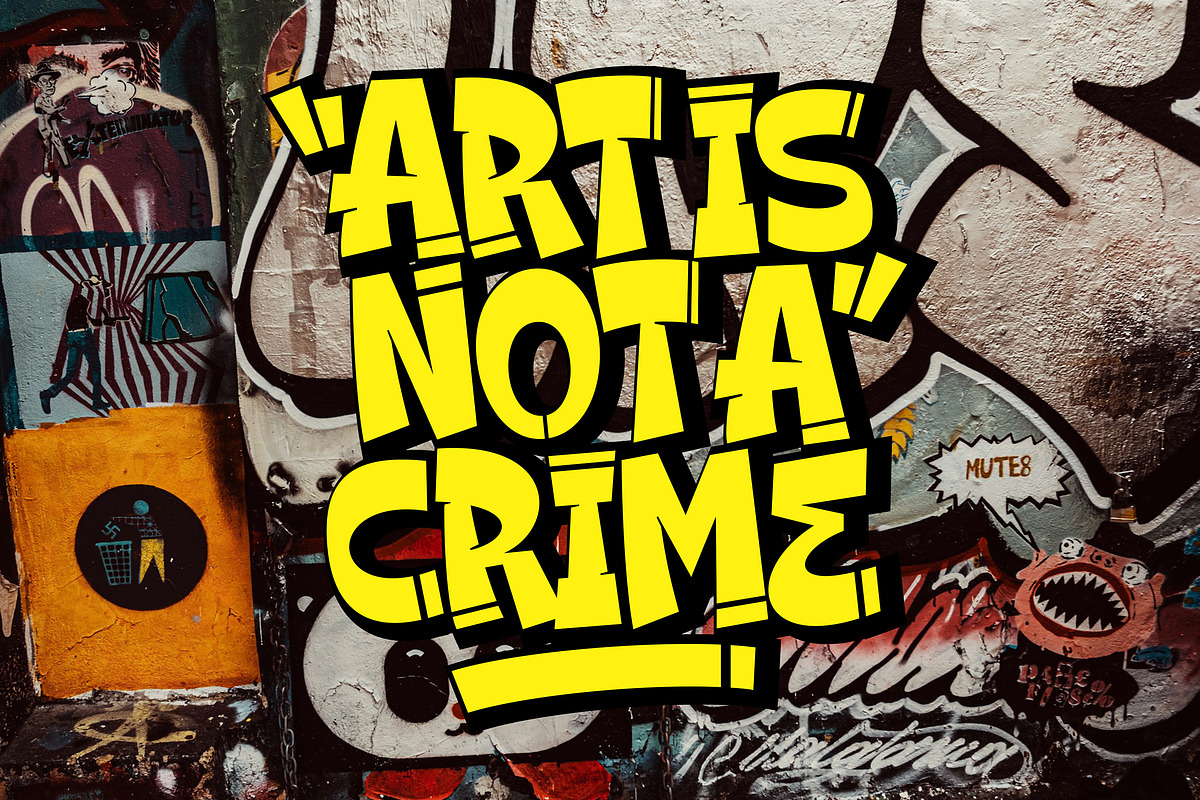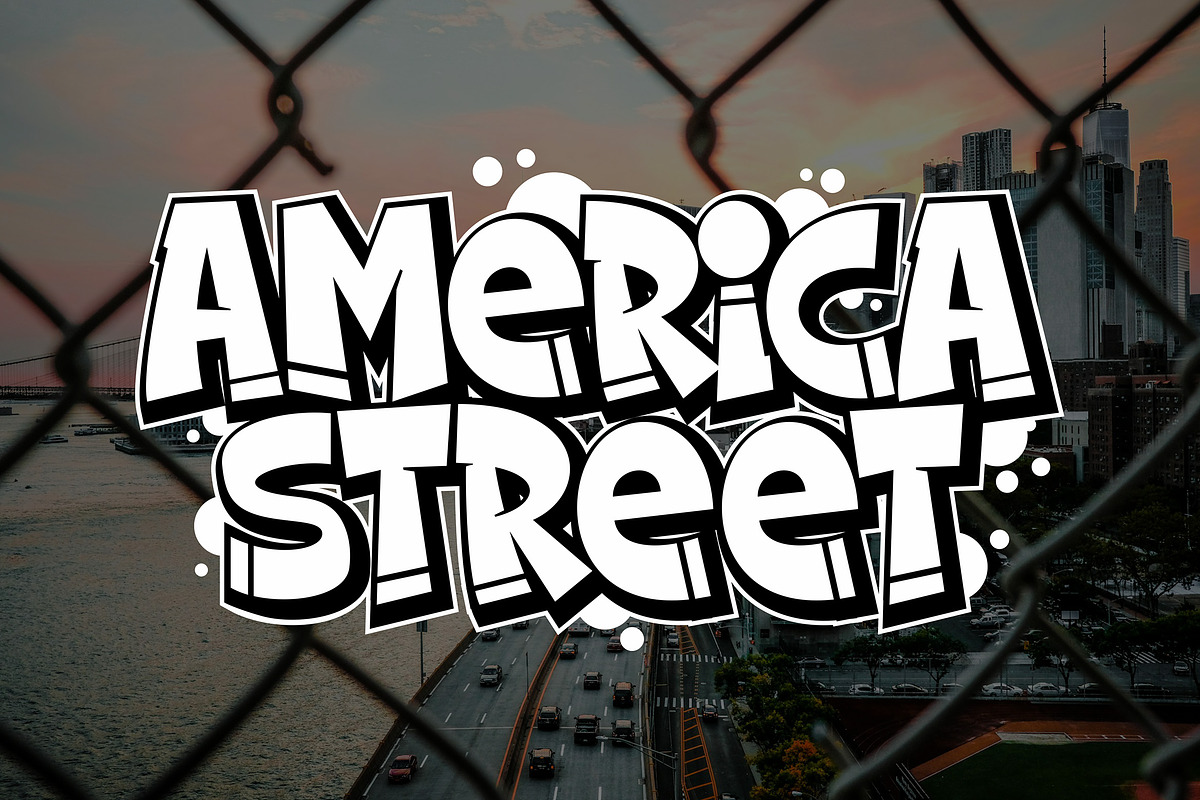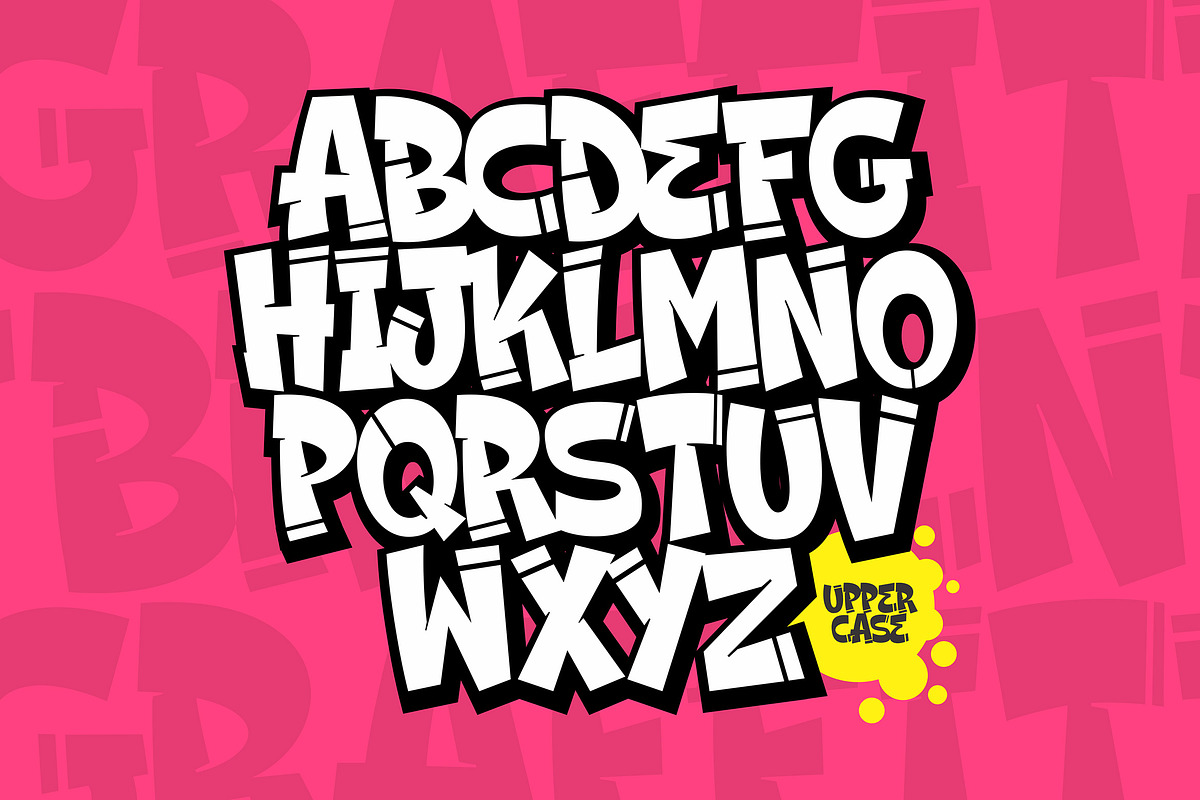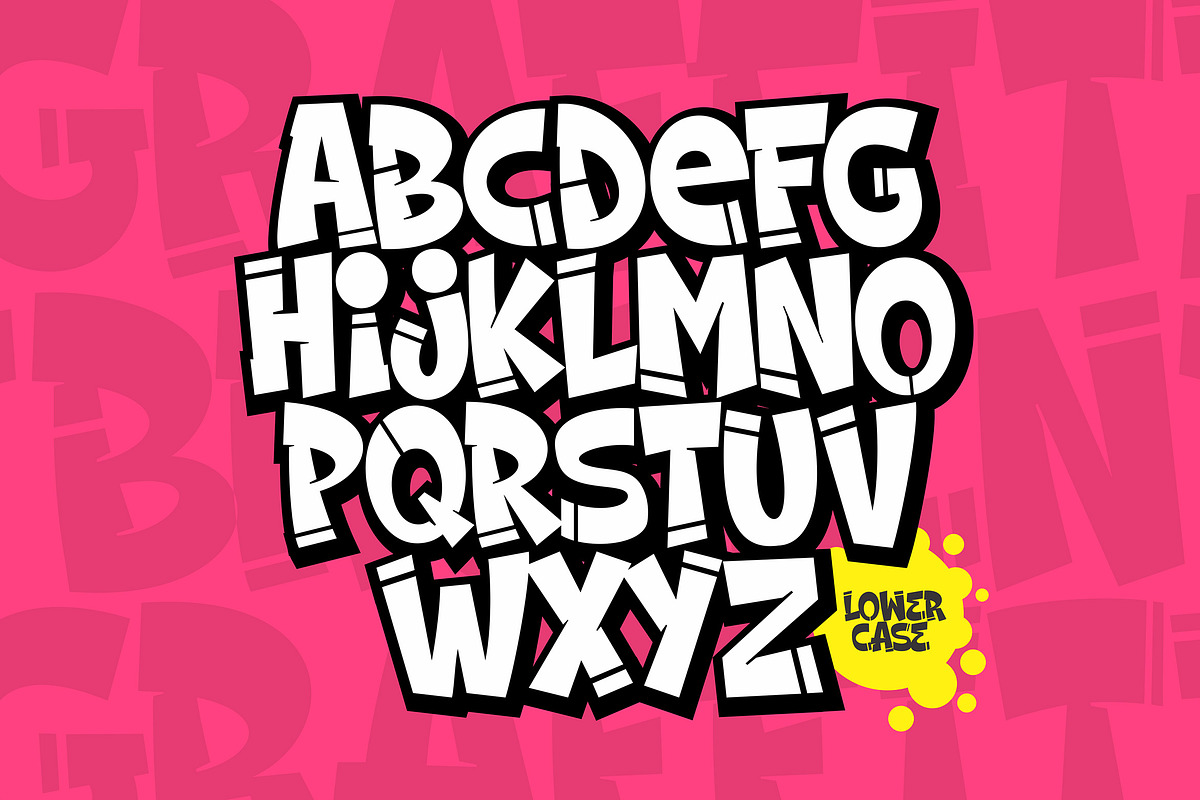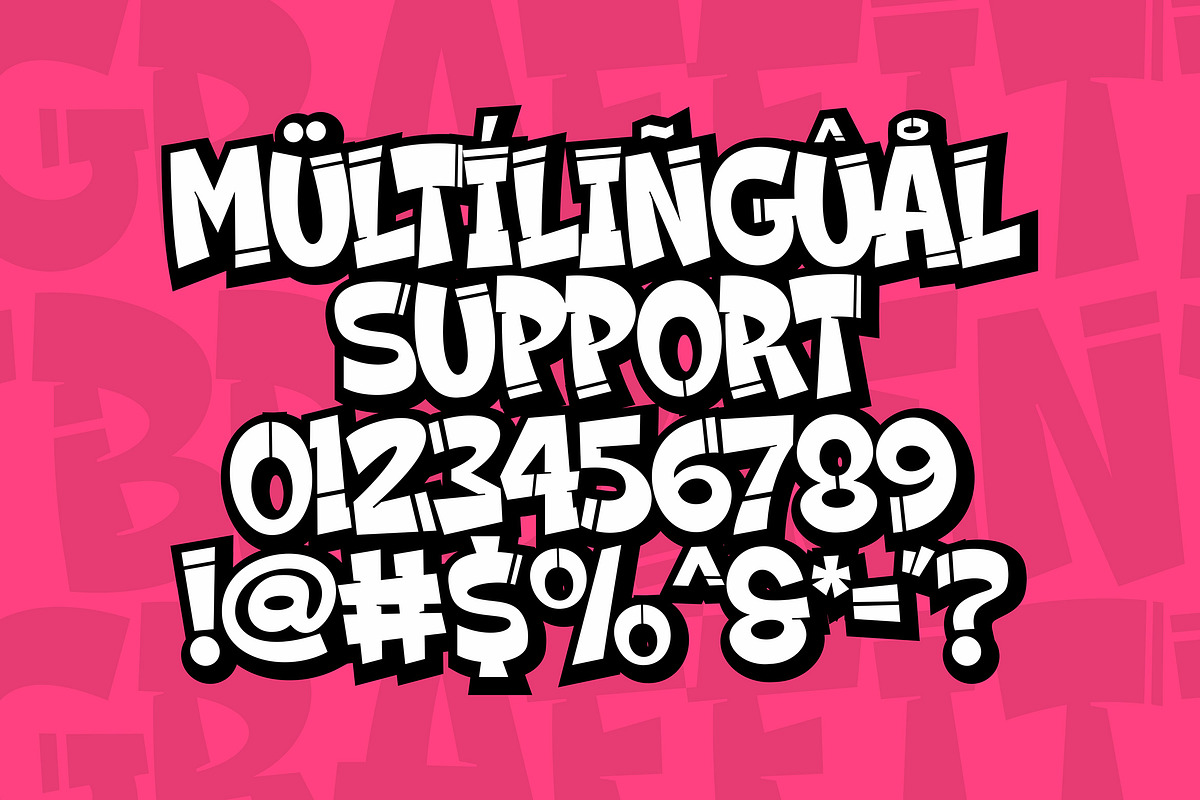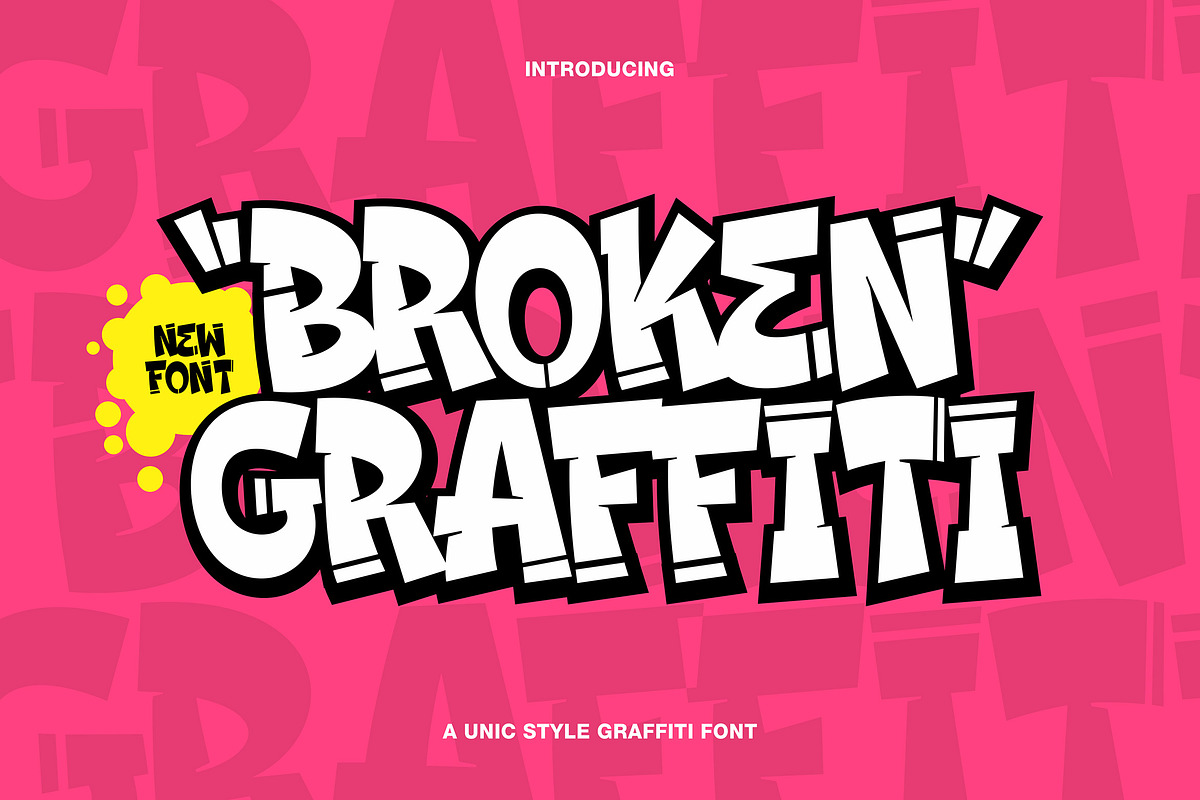
Broken Graffiti
The Broken Graffiti is new font from Rvq Typefoundry,Unique and simple letters for use in product design in a graffiti style.This font is good for clothing products, social media, posters, banners, logos and others.
Broken Graffiti is suitable font for many creative products & designs.